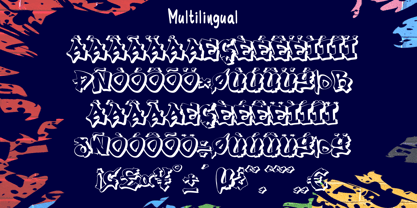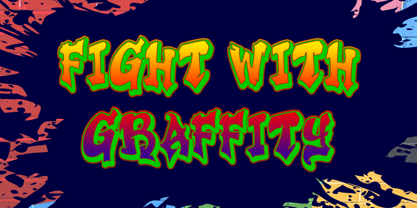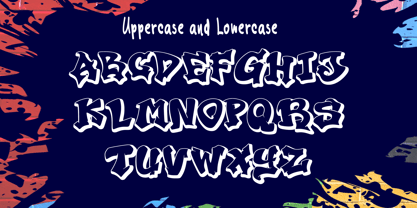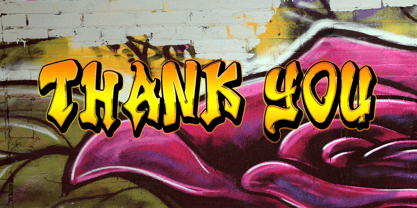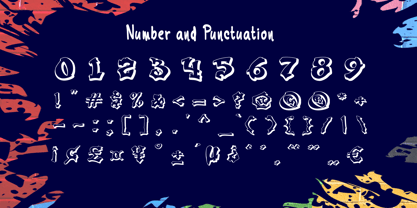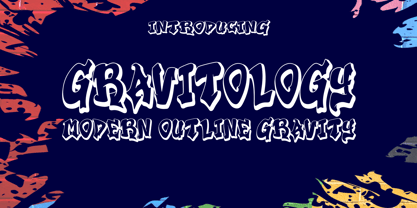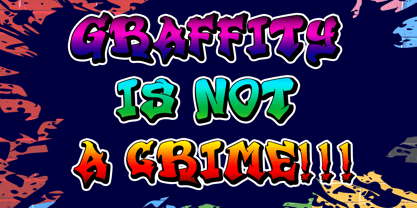
Gravitology
The Gravitology Font Family was designed by and published by Ayyara Letterindo. Gravitology contains 1 styles. More about this family
Gravitology is graffiti street style font that looks marvelous and is perfect for mural effect creations. This font comes with a unique shape where each corner is smoother and more rounded, this font is perfect for branding projects, logo, social media posts, advertisements, product packaging, product designs, labels and you can use this display font for logo shirt designs adding a special retro touch to any design idea you can think of!
--Uppercase